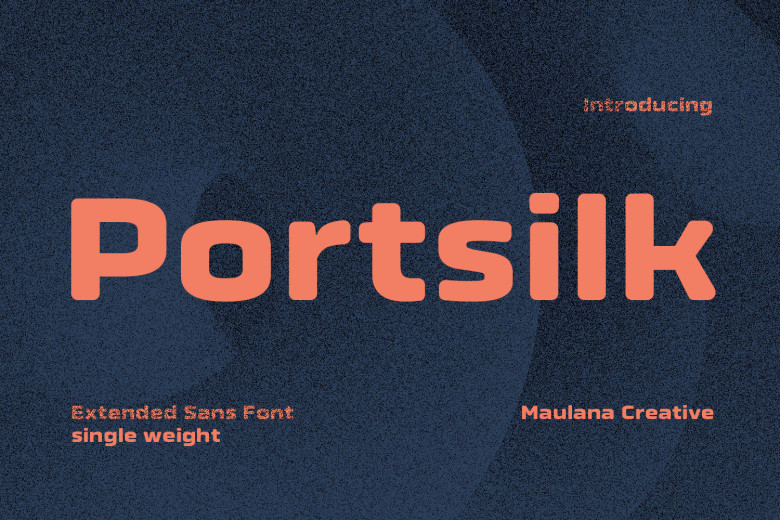
Portsilk Font
Portsilk is wide clean round sans display font, inspired by legendary Eurostile. Bold strokes, a fun character with a bit of ligature and alternates. This font is good for logo design, Social media, Movie Titles, Books Titles, short text even long text letters, and is good for your secondary text font with script or serif. Make stunning work with Portsilk font.
Portsilk Sans Display Font